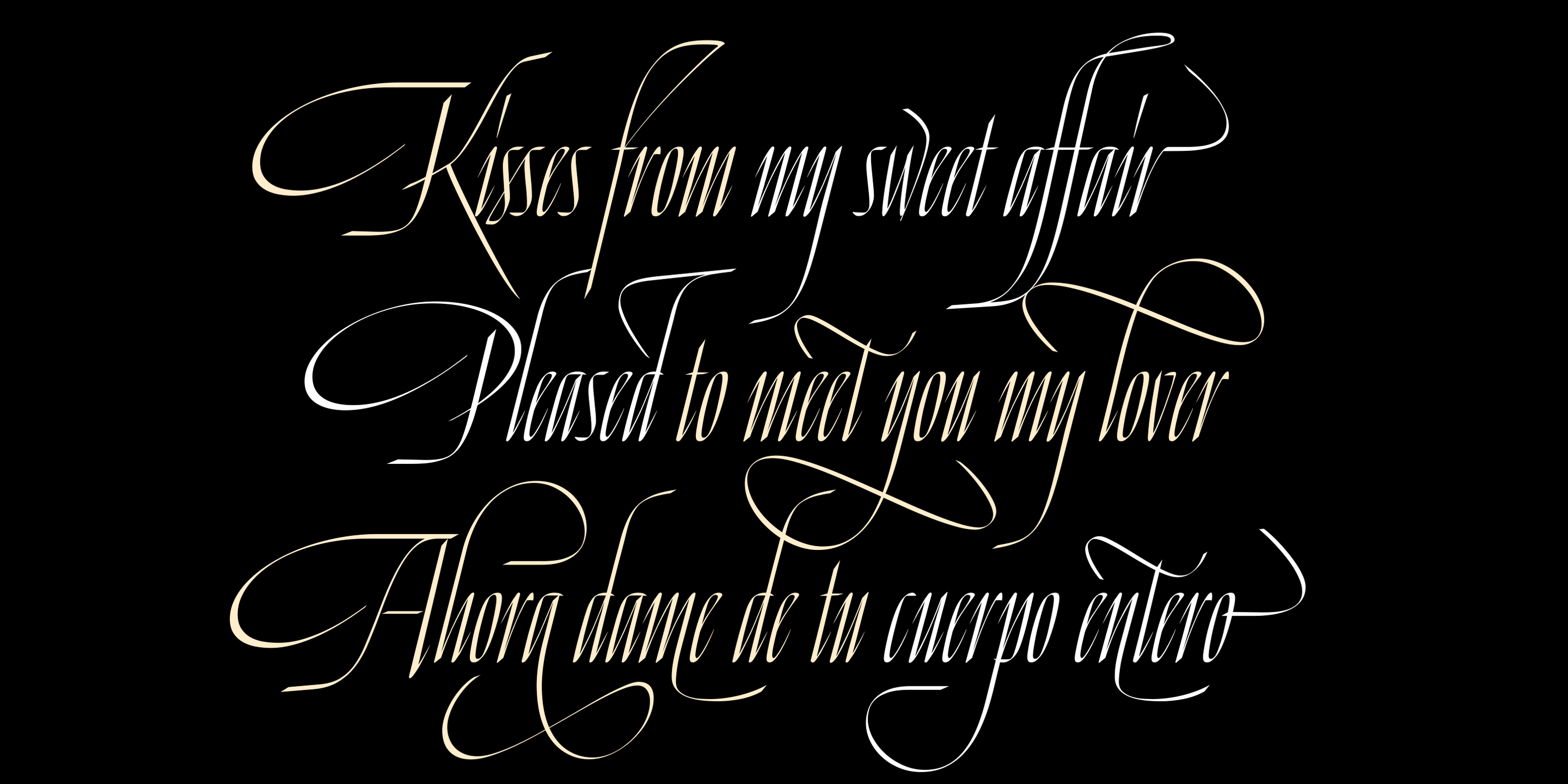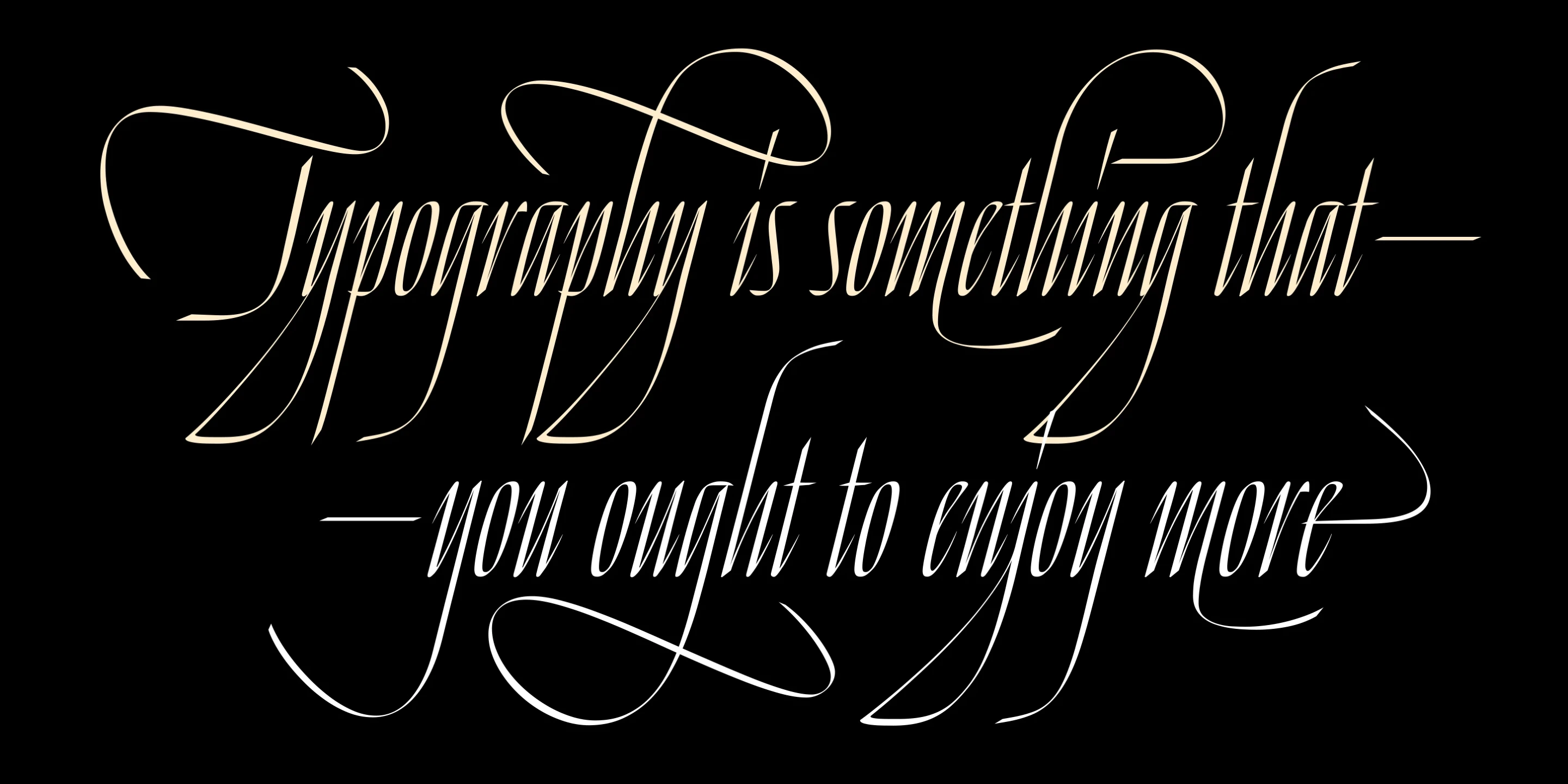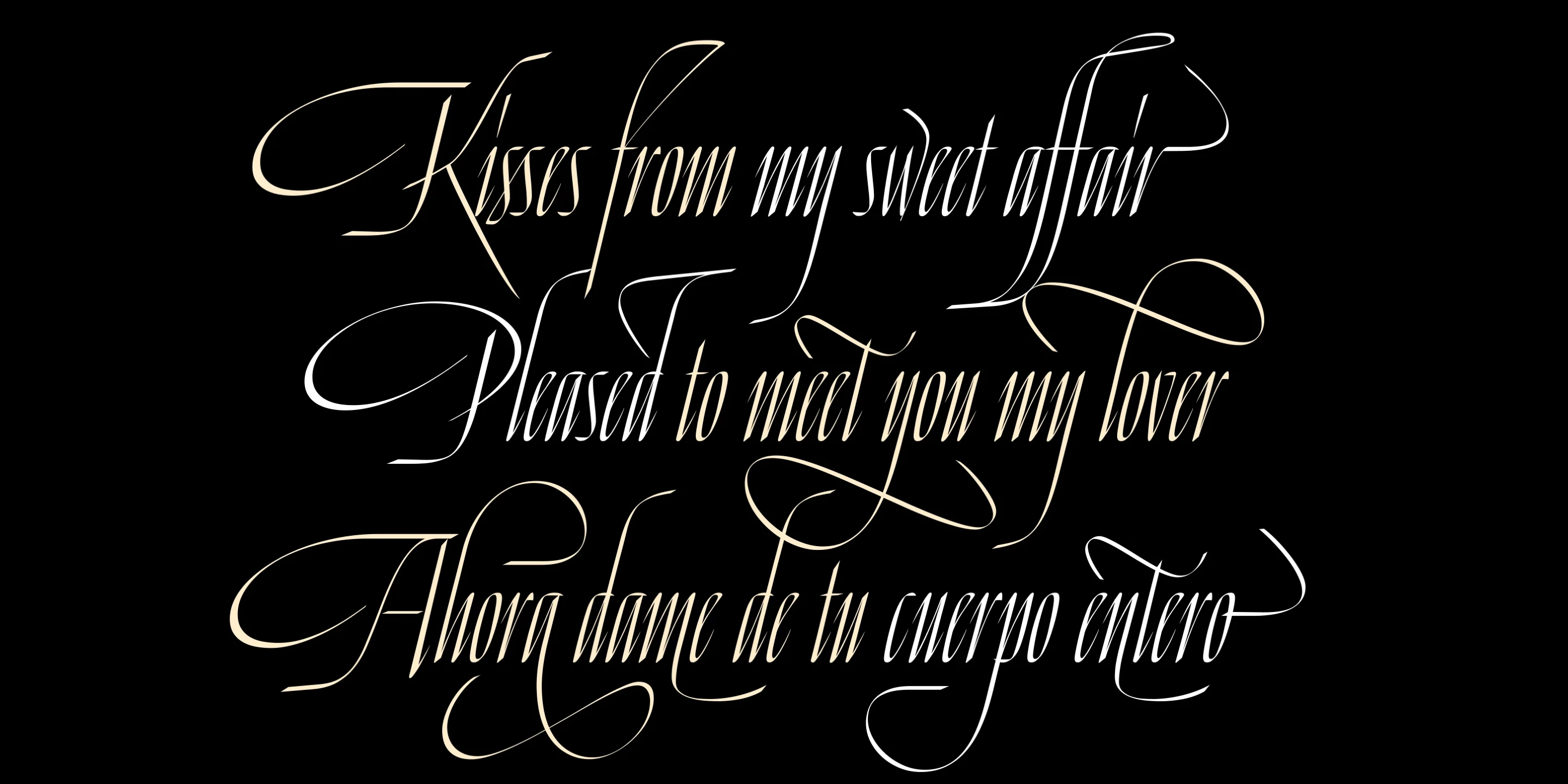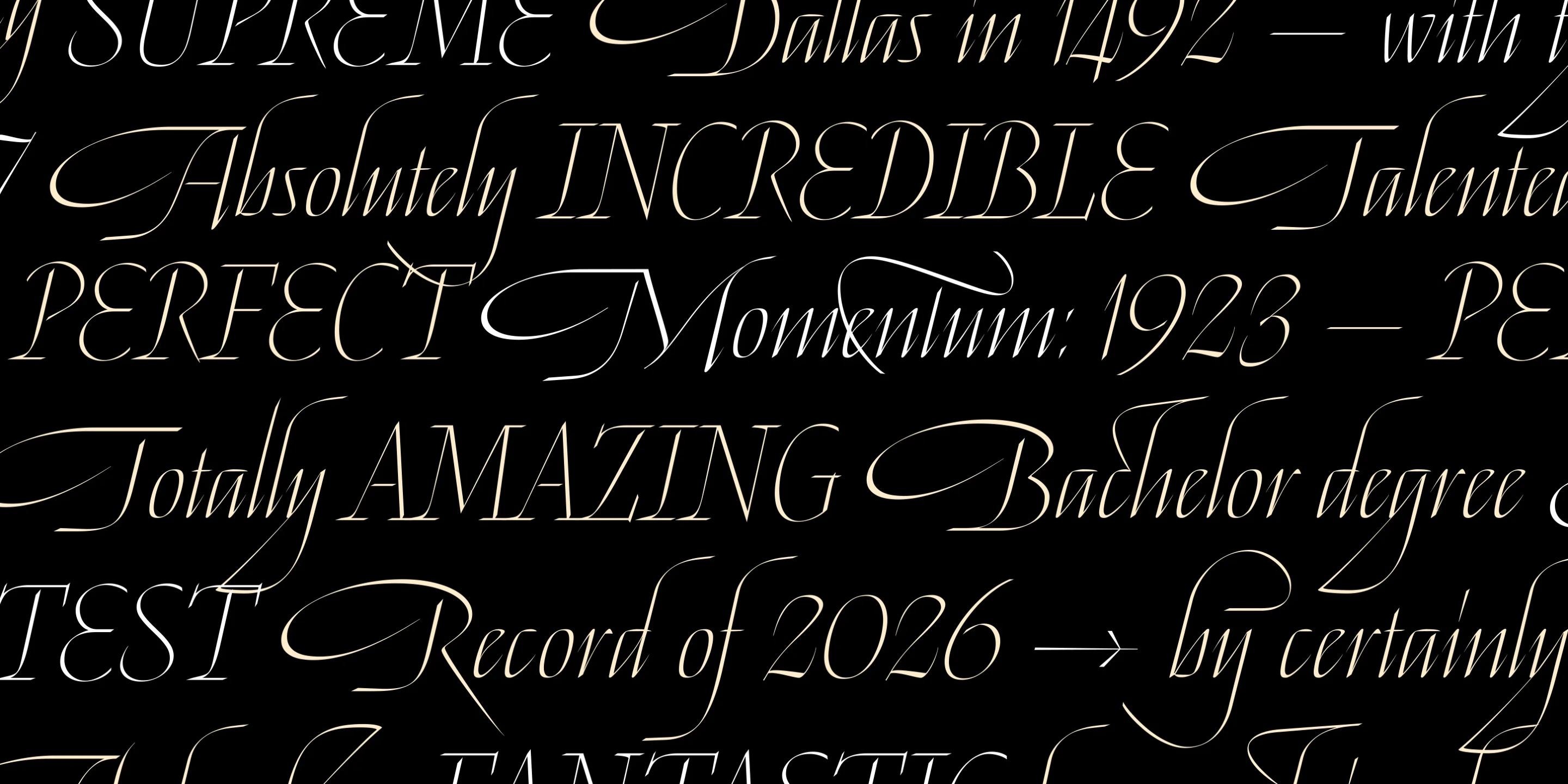
Venganza font by Sproviero Type — the phrase “Typography is something that — you ought to enjoy more” in an elegant, high-contrast, connected script with dramatic flourishes and swashes.
Venganza font by Sproviero Type — three lines of connected script, the first reading “Kisses from my sweet affair”, the second “Pleased to meet you my lover”, and the third “Ahora dame de tu cuerpo entero”
Venganza font by Sproviero Type — the italic script words “Passionate calligraphers ink their letters with flowing strokes dipping deep and rising high” with long, sweeping ascenders and descenders
Venganza font by Sproviero Type — the words “The Revenge of calligraphy” in a high-contrast, connected script, with “The” in white and “Revenge of calligraphy” in cream, all on a dark, textured rock background.
Venganza font by Sproviero Type — a repeating pattern of upright sans-serif words like “SUPREME” and “INCREDIBLE” alternating with italic high-contrast script words like “Absolutely” and “Momentum”
Venganza font by Sproviero Type — the word “Venganza” in an upright, high-contrast calligraphic script with sweeping curves and exaggerated ascenders and descenders, over a background of swirling light and dark textures
Venganza Variable
Venganza Condensed
Venganza Regular
Venganza Expanded
Venganza Wide
Venganza is a calligraphic font family filled with elegant flourish and syncopated precision. Based on the Chancery script, it is an exploration in angled stems, exaggerated verticality, extreme stroke contrast, and sweeping curves. The long descenders and high-arching ascenders give the typeface a visual breathing space between tension and release — a controlled flamboyance. Venganza is well-suited for delivering visual suspense and high drama to book covers, luxury branding, film posters, and editorial layouts.
• Common Ligatures
Ligatures
Discretionary Ligatures
Ornaments
Stylistic Alternates
Swashes
Stylistic Set 1
Stylistic Set 2
Stylistic Set 3
Stylistic Set 7
Stylistic Set 9
Stylistic Set 10
Stylistic Set 12
Stylistic Set 13
Stylistic Set 14